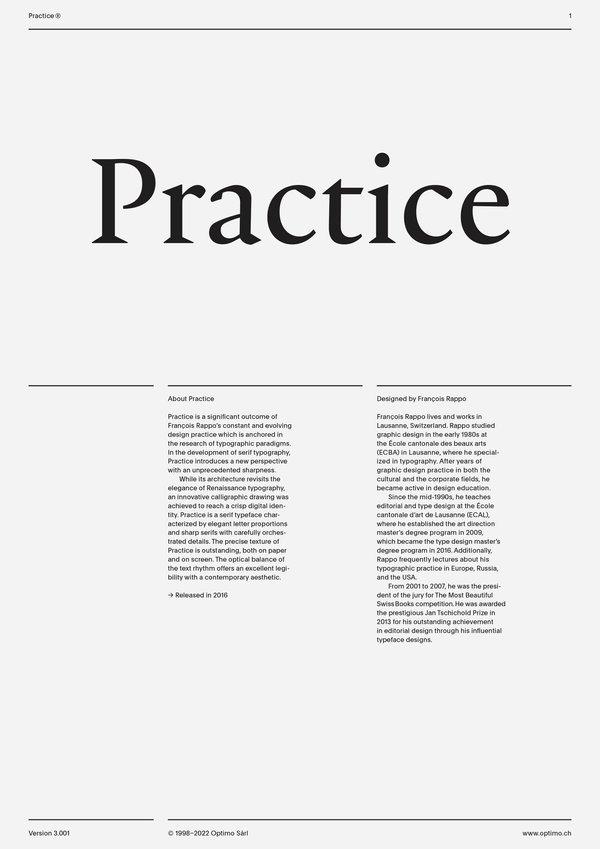
Practice Display
Practice
Case Sensitive Forms
All Caps [cpsp]
Case Sensitive Forms [case]
This function formats the text in uppercase and adjusts spacing between all capital letters. It also applies the ‘Case Sensitive Forms’ feature which replaces certain characters with alternates that are better suited for all capital text, especially related to punctuation.
«Optimo»
«OPTIMO»
Contextual Alternates
Contextual Alternates [calt]
This feature adapts the position of a glyph after its surrounding context. For instance, a dash placed between two uppercase letters or numbers will be replaced by an uppercase version of the dash, slightly higher. This feature is usually active by default in Adobe applications.
Alternate p
Stylistics Set 1 [ss01]
This feature replaces glyph(s) with stylistic alternate(s).
Alternate Q
Stylistics Set 10 [ss10]
This feature replaces glyph(s) with stylistic alternate(s).
Historical long s
Stylistic Set 7 [ss07]
This feature replaces glyph(s) with stylistic alternate(s).
Tabular Lining Figures
Tabular Lining Figures [tnum–lnum]
Based on the proportions of the capitals, lining figures have an invariable height. With the combination of the tabular spacing format, the width of each numeral is uniformized. This feature is useful when numerals need to all lined up. It facilitates the reading of numbers set within columns or tables. As some applications don’t have access to this feature, proportional figures are set as the default choice.
Proportional Oldstyle Figures
Proportional Oldstyle Figures [pnum–onum]
Based on the design of the lowercase, oldstyle figures have varying ascenders and descenders. Like most of the letters, each number has an appropriate width based on its shape. The combination of oldstyle figures with proportional setting generate numerals perfectly adapted for text.
Tabular Oldstyle Figures
Tabular Oldstyle Figures [tnum–onum]
Based on the design of the lowercase, oldstyle figures have varying ascenders and descenders. With the combination of the tabular spacing format, the width of each numeral is uniformized. This feature is useful when numerals need to all lined up. It facilitates the reading of numbers set within columns or tables.
Lowercase math symbols
Stylistic Set 6 [ss06]
This feature activates alternate lowercase positioning of mathematical symbols.
All Optimo fonts have at least three basic pre-built fractions (1/2, 1/4, 3/4).
This feature replaces any letter following a numeral with its matching superior letters. French language uses the ordinal indicators such as ‘er’ for 1er premier, while Spanish, Portuguese and Italian require the feminine and masculine ordinals ‘a,’ ‘o’ for 1º, 1ª. Ordinals are designed to match the weight of the typeface.
Ampersand alternate [italics only]
Stylistics Set 8 [ss08]
This feature replaces glyph(s) with stylistic alternate(s).
Slashed Zero
Slashed Zero [zero]
Originally created to avoid the confusion between the ‘0’ and the ‘O’, this feature substitutes all zeros in a selected text by a slashed form of the zero.
Slashed Zero Oldstyle
Slashed Zero [zero]
Originally created to avoid the confusion between the ‘0’ and the ‘O’, this feature substitutes all zeros in a selected text by a slashed form of the zero.
Proportional Oldstyle Figures [onum]
Tabular figures are all of equal width. They are only needed when the figures must all line up from one line to the next, as in a table. Proportional figures have varying widths, just like most letters; each number has a width appropriate to its design. Lining figures are all the same height, usually similar to that of capital letters. They are needed for use with all-capital settings.
Multiply sign
Stylistic Set 20 [ss20]
This feature substitutes the letter “x” into the multiplication sign.
Numerators [numr]
This feature substitutes glyphs with their matching smaller alternates. The numerators are the same glyphs that are used to create fractions, their vertical position remains within the capital letters height. These glyphs are reduced in size and designed slightly heavier to keep them consistent with the rest of the font.
While its architecture revisits the elegance of Renaissance typography, an innovative calligraphic drawing was achieved to reach a crisp digital identity. Practice is a serif typeface characterized by elegant letter proportions and sharp serifs with carefully orchestrated details. The precise texture of Practice is outstanding, both on paper and on screen. The optical balance of the text rhythm offers an excellent legibility with a contemporary aesthetic.